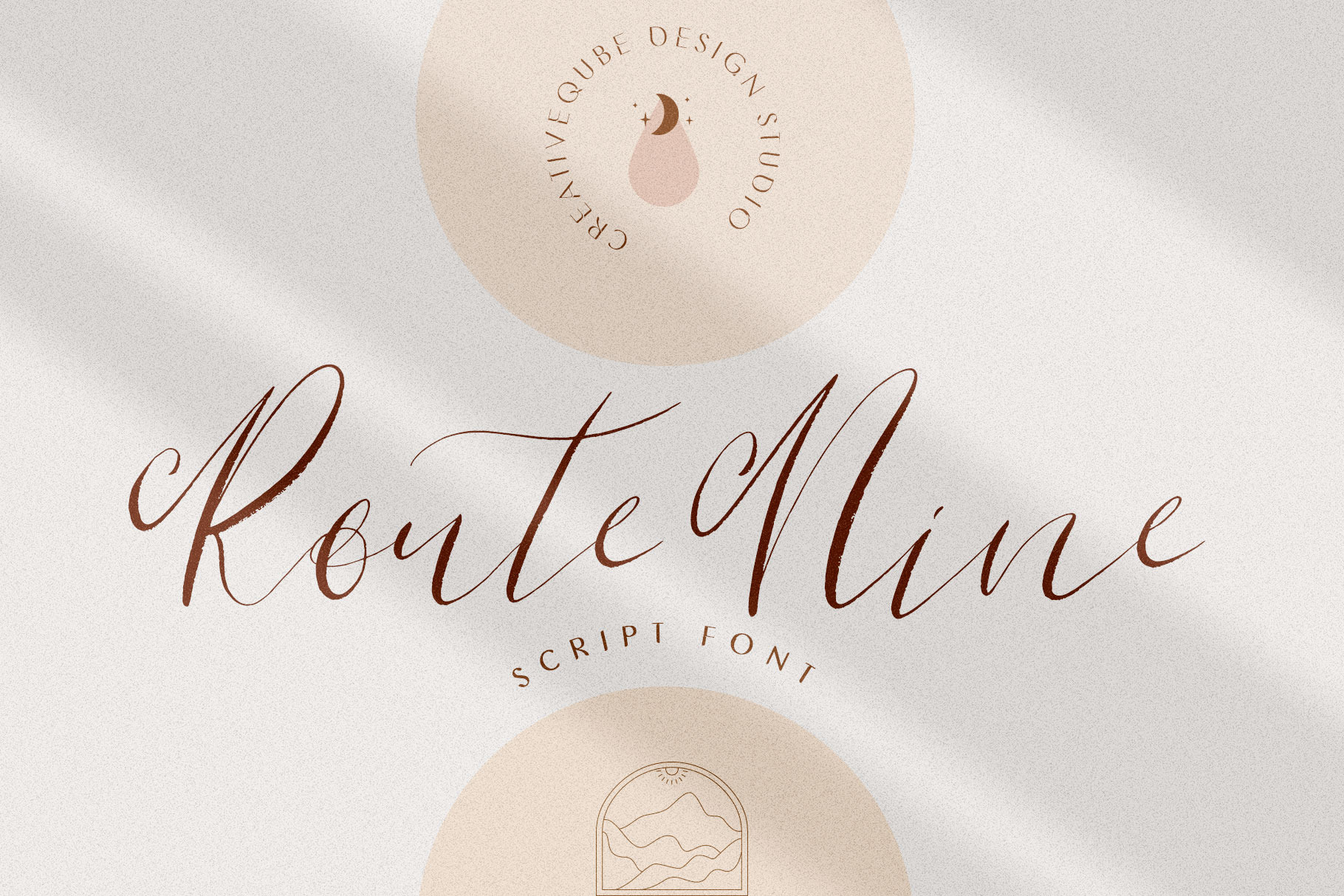
Route Nine Script Font
Introducing Route Nine script font. A hand drawn slim script with scrolls on all uppercase letters.
International characters included.